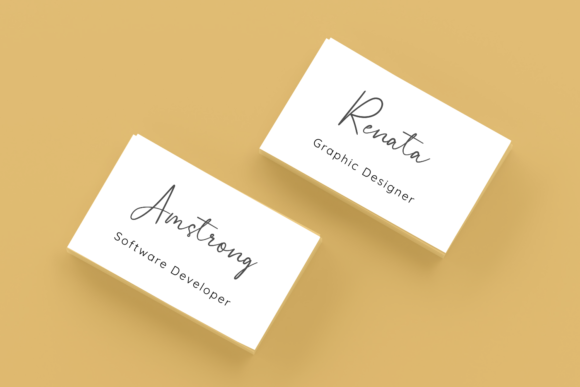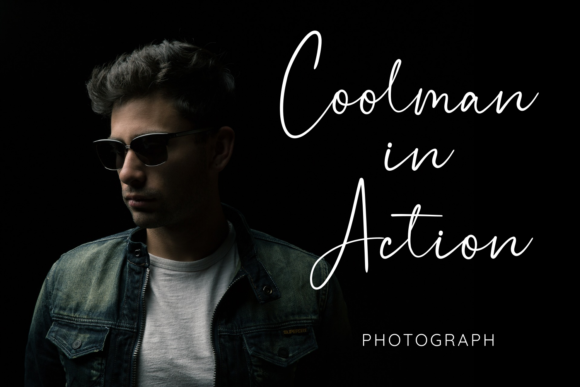
Belyta Font
db-ku.com - Script & Handwritten -- Belyta is a relaxed and cursive handwritten font. This versatile script font has a wide spectrum of applications ranging from greeting cards to headlines and is guaranteed to add a romantic feel to your next project.